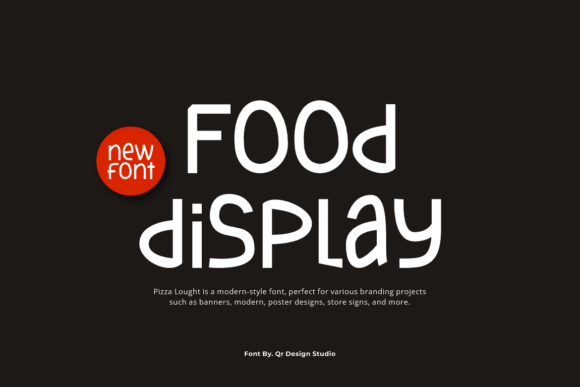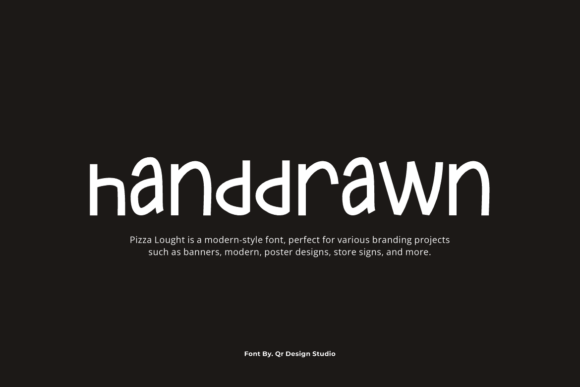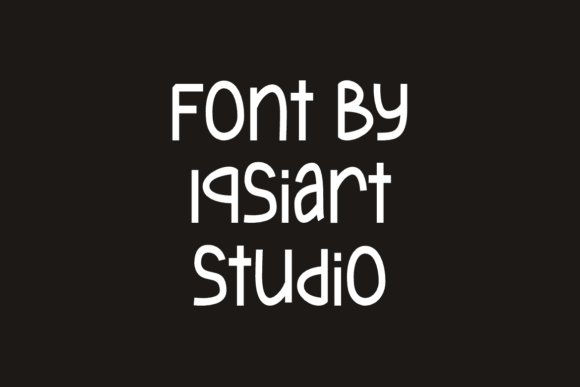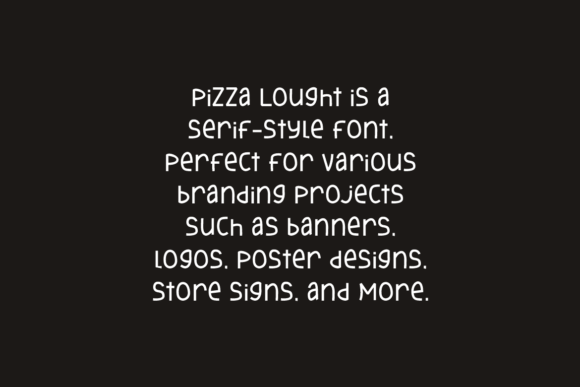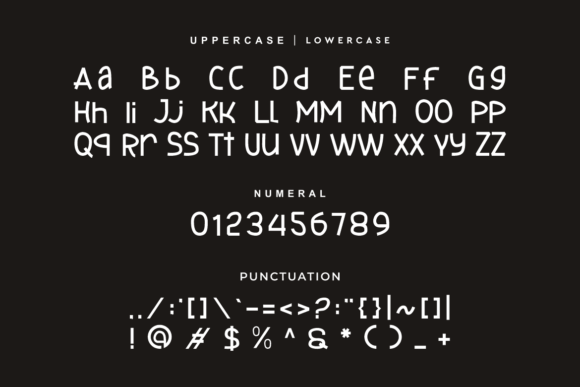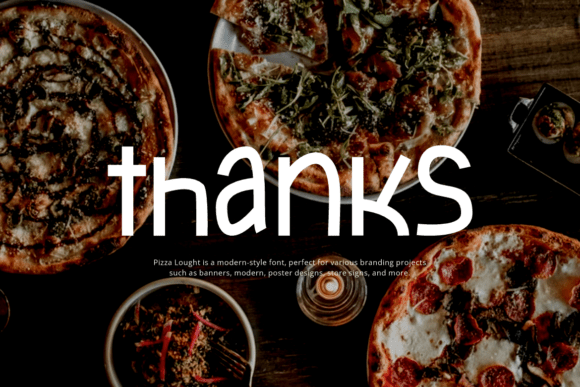
Introduction to Pizza Lought Font
Serve up a fresh look for your next project with Pizza Lought, a modern-style display font that combines geometric precision with a playful, organic soul.
Perfect for pizza shop logos, food truck menus, and casual dining identities Pizza Lought is built for high-visibility branding.
Key Features of Pizza Lought Font
Why Choose Pizza Lought Font?
Pizza Lought Font offers exceptional quality and versatility, making it a valuable addition to your design toolkit. Whether you’re creating for personal projects or commercial use, Pizza Lought Font delivers professional results.